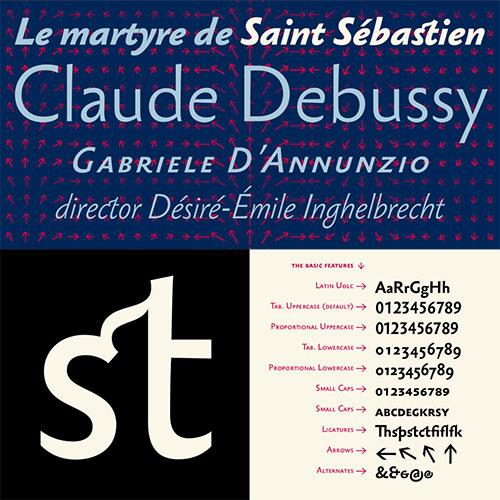
- Sans-serif typefaces compensate for their basic handicap – an absence of serifs – with a softening modulation typical of roman typefaces. Grotesques often inherit a hypertrophy of the x-height, which is very efficient, but not very beautiful. They are like dogs with fat bodies and short legs. Why do we love old Garamonds? Beside beautifully modelled details, they possess aspect-ratios of parts within characters that timelessly and beauteously parallel the anatomy of the human body. Proportions of thighs, arms or legs have their universal rules, but cannot be measured by pixels and millimetres. These sometimes produce almost unnoticeable inner tensions, perceptible only very slowly, after a period of living with the type. Serifed typefaces are open to many possibilities in this regard; when a character is mounted on its edges with serifs, what is happening in between is more freely up to the designer. In the case of grotesques, everything is visible; the shape of the letter must exist in absolute nakedness and total simplicity, and must somehow also be spirited and original.